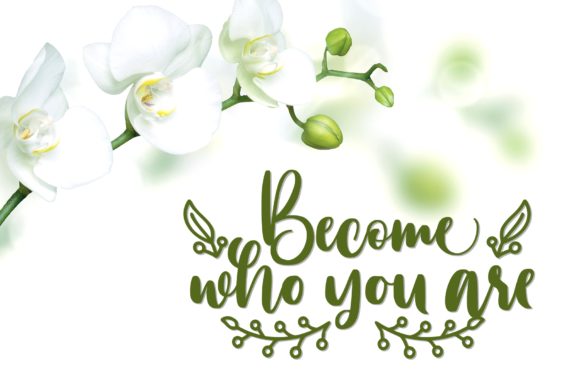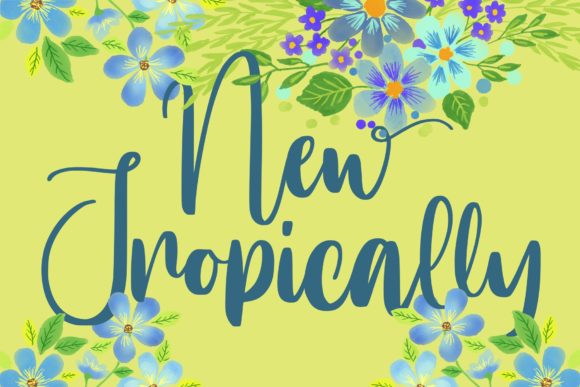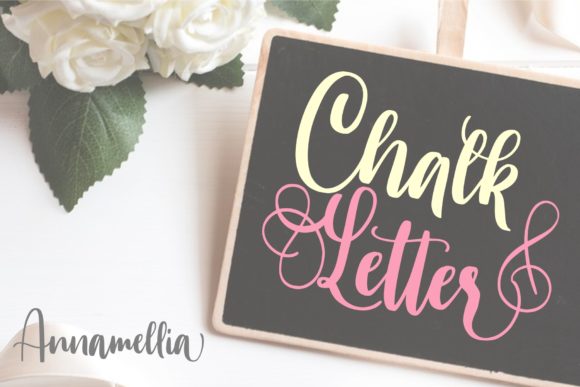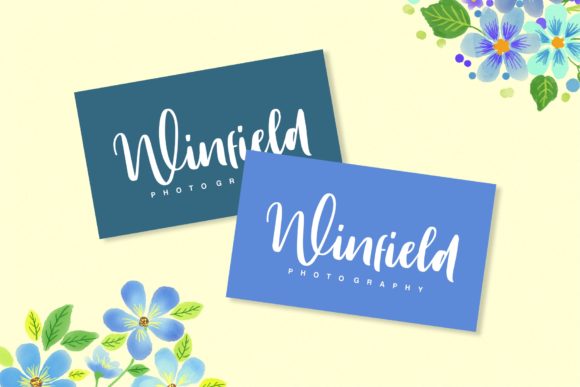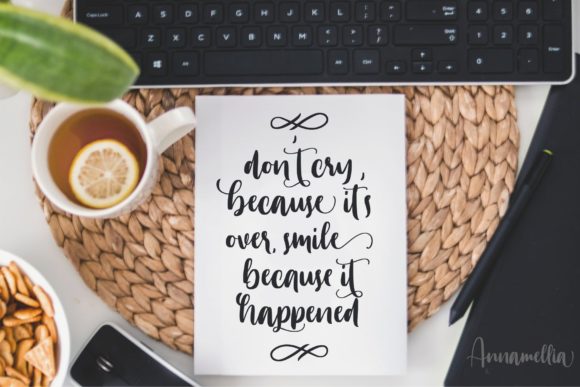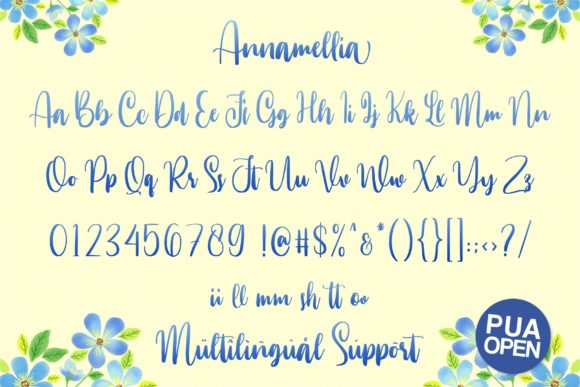
Introducing Annamellia Font: The Perfect Handwritten Companion for Crafts and Designs
In the world of digital design, fonts play a crucial role in conveying emotions and setting the tone for any project. For crafters, designers, and DIY enthusiasts, finding the right font can elevate a simple project into a stunning masterpiece. This is where Annamellia Font comes into play—a stunning and fresh handwritten font that brings an authentic vibe to any crafts project. In this article, we’ll dive deep into the features, benefits, and uses of Annamellia Font, and explore how it can add a personal feel to your creative endeavors.
What is Annamellia Font?
Annamellia Font is a beautifully crafted handwritten font designed to bring a touch of personal elegance to various design projects. Its authentic and fresh vibe makes it an ideal choice for crafters, designers, and anyone looking to add a personal touch to their work. Whether you’re creating handmade cards, crafting unique DIY projects, or designing captivating digital content, Annamellia Font is sure to impress.
Key Features of Annamellia Font
- Handwritten Authenticity: Annamellia Font boasts a natural, handwritten look that adds warmth and personality to any project.
- Fresh and Modern: With its clean lines and contemporary feel, Annamellia Font is perfect for both traditional and modern design projects.
- Versatility: This font can be used across a wide range of applications, from crafting and DIY projects to digital designs and marketing materials.
- Easy to Read: Despite its artistic nature, Annamellia Font remains highly legible, making it suitable for both headings and body text.
Benefits of Using Annamellia Font
Using Annamellia Font in your projects comes with numerous benefits. Here are a few:
- Personal Touch: The handwritten nature of Annamellia Font adds a personal touch to your projects, making them stand out from the crowd.
- Emotional Connection: The authentic vibe of this font helps create an emotional connection with your audience, making your message more impactful.
- Time-Saving: With Annamellia Font, you can achieve professional-looking results without spending hours on custom lettering.
How to Use Annamellia Font in Your Projects
Incorporating Annamellia Font into your designs is straightforward. Here are some ideas to get you started:
- Handmade Cards and Invitations: Add a personal touch to your greeting cards, invitations, and thank-you notes.
- DIY Crafts: Use Annamellia Font to create custom labels, tags, and banners for your craft projects.
- Digital Designs: Enhance your social media graphics, blog posts, and website content with the warm and inviting look of Annamellia Font.
- Marketing Materials: Incorporate this font into your branding, packaging, and advertising materials to create a cohesive and personal brand image.
Tips for Getting the Most Out of Annamellia Font
To maximize the impact of Annamellia Font, consider the following tips:
- Mix and Match: Combine Annamellia Font with other fonts to create visual interest and hierarchy in your designs.
- Experiment with Colors: Play with different colors and textures to enhance the authentic feel of the font.
- Pay Attention to Spacing: Adjust the spacing between letters and lines to ensure optimal readability and aesthetics.
| Font Name | Annamellia Font |
| Author | goodjavastudio |
Annamellia Font is a versatile and charming handwritten font that can add a personal feel to any crafts project. Its authentic vibe, modern freshness, and ease of use make it an excellent choice for designers, crafters, and DIY enthusiasts. By incorporating Annamellia Font into your projects, you can create stunning and impactful designs that resonate with your audience. So why wait? Explore the creative possibilities with Annamellia Font today and take your designs to the next level!